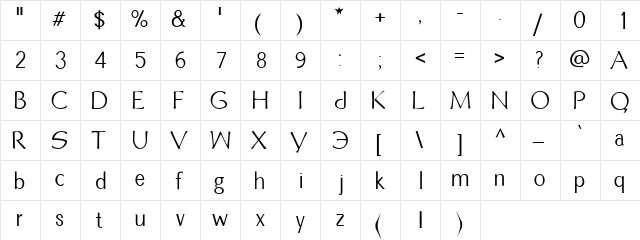
Proserpina Regular
| Foundry | David F. Nalle |
Design Context for Proserpina Typeface
Proserpina is a composed and adaptable typeface that performs quietly and consistently across a wide range of design contexts.